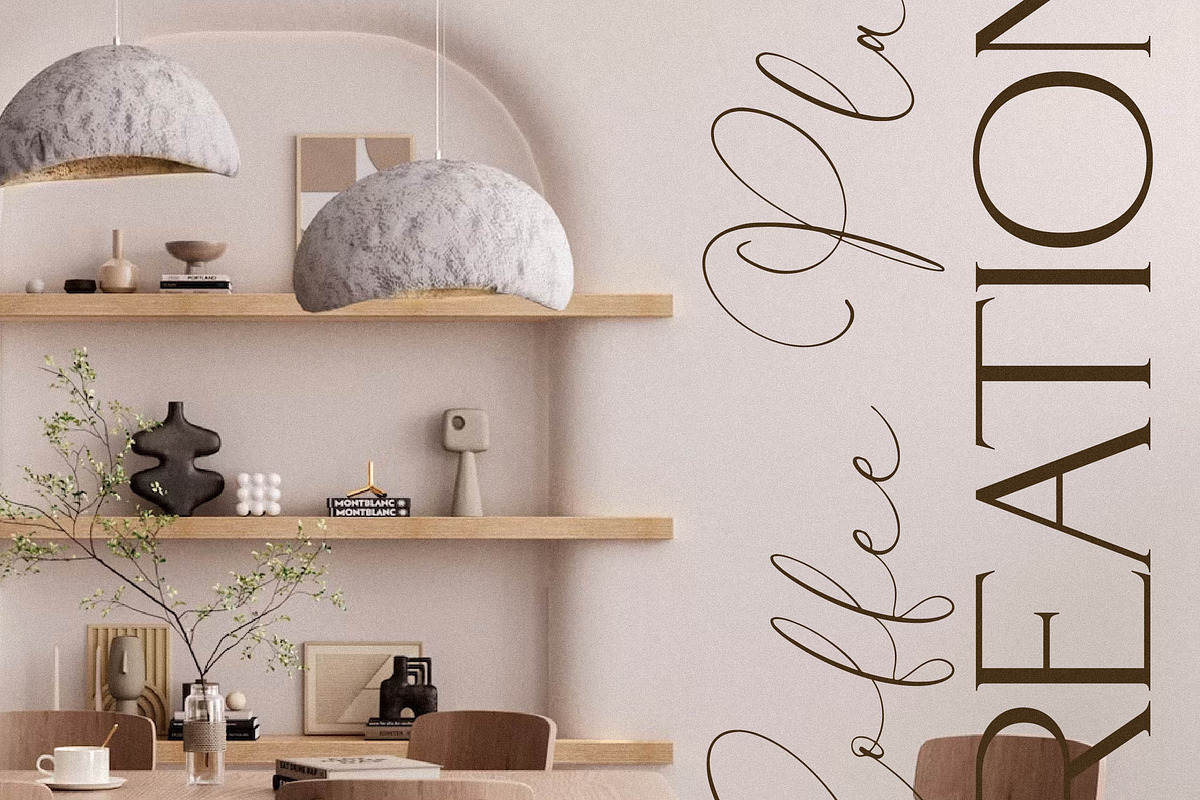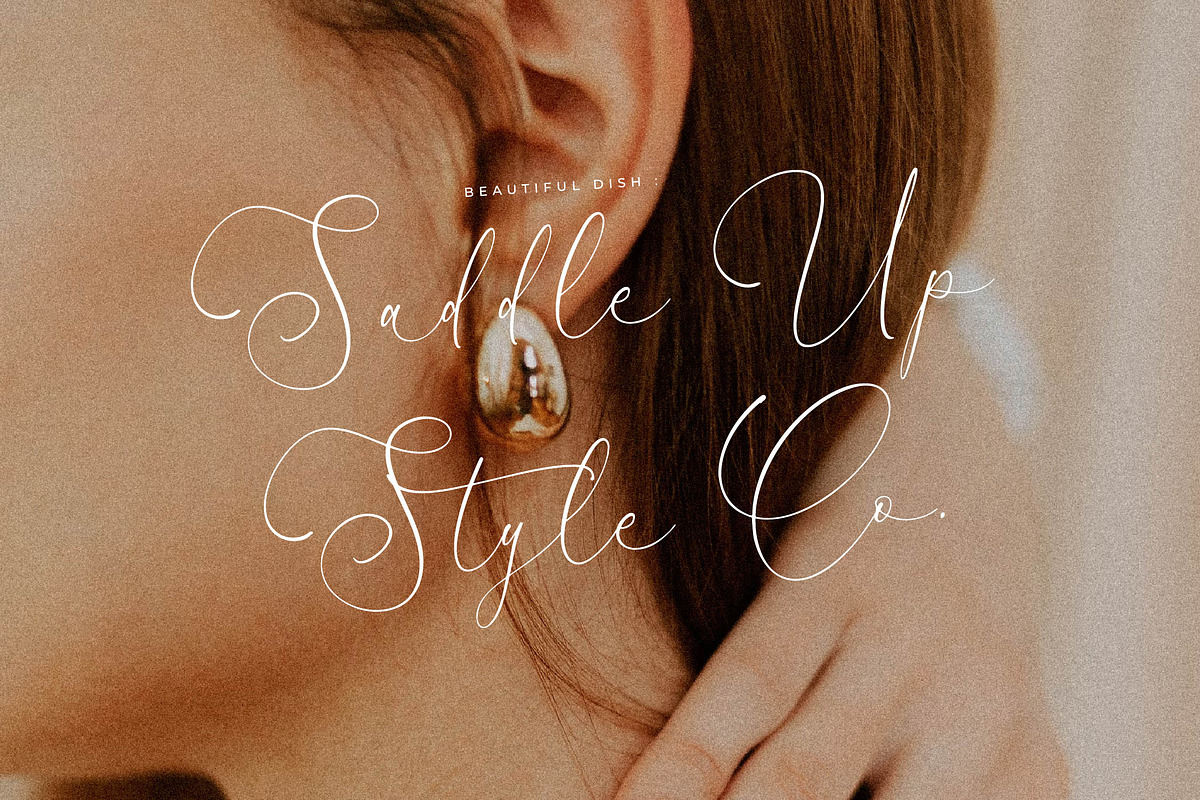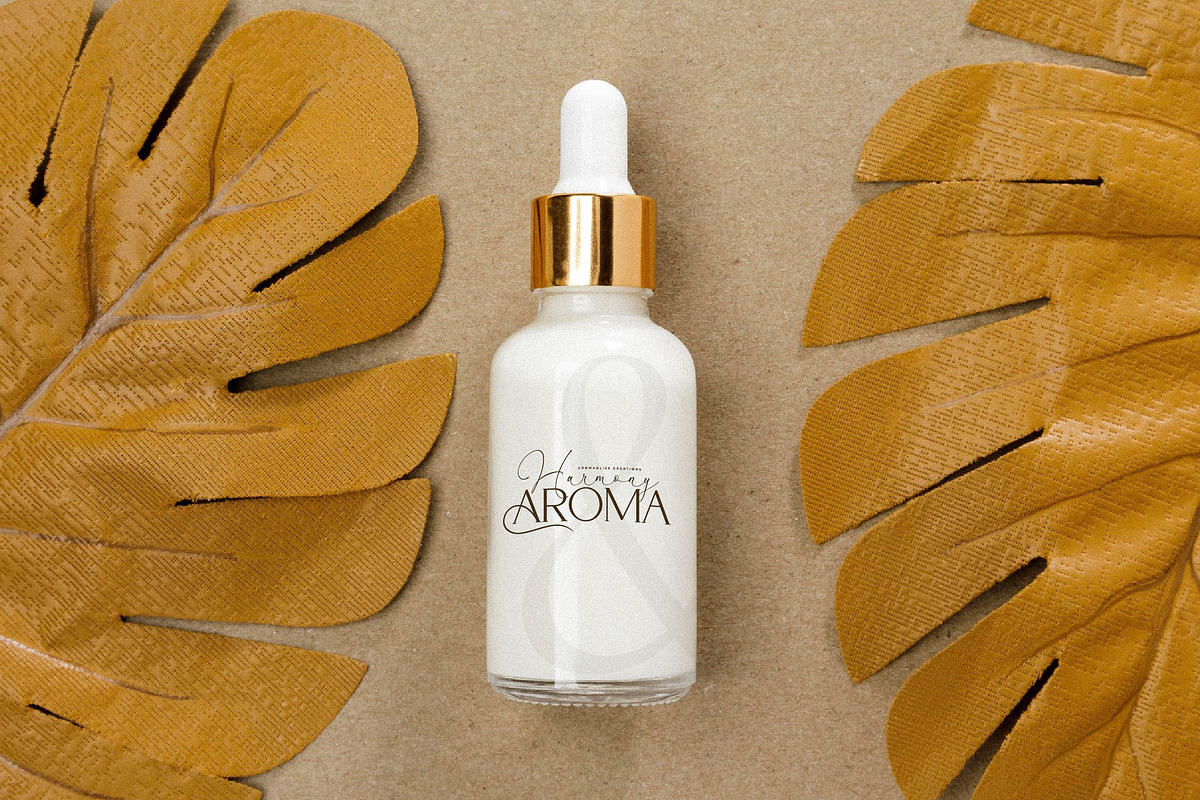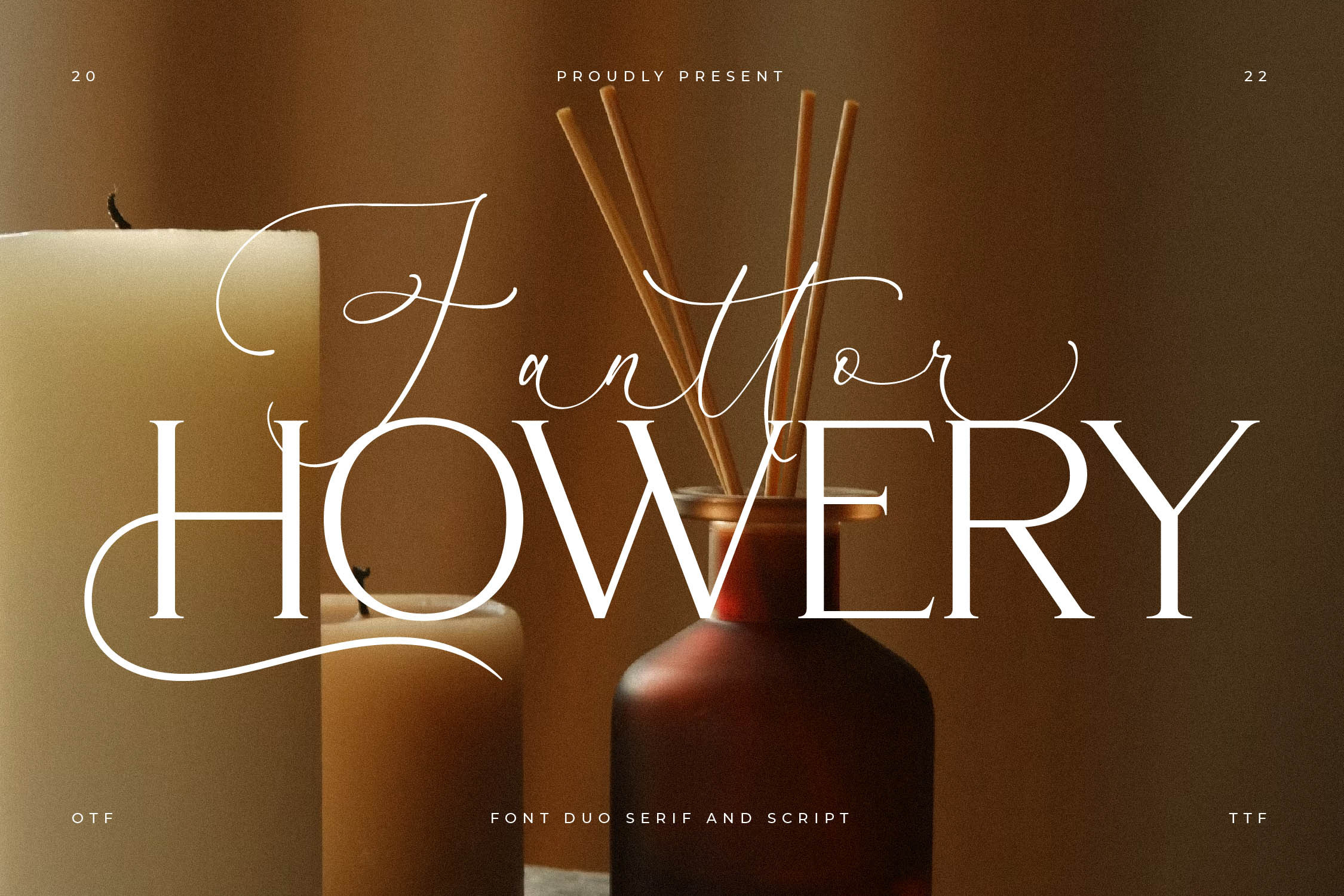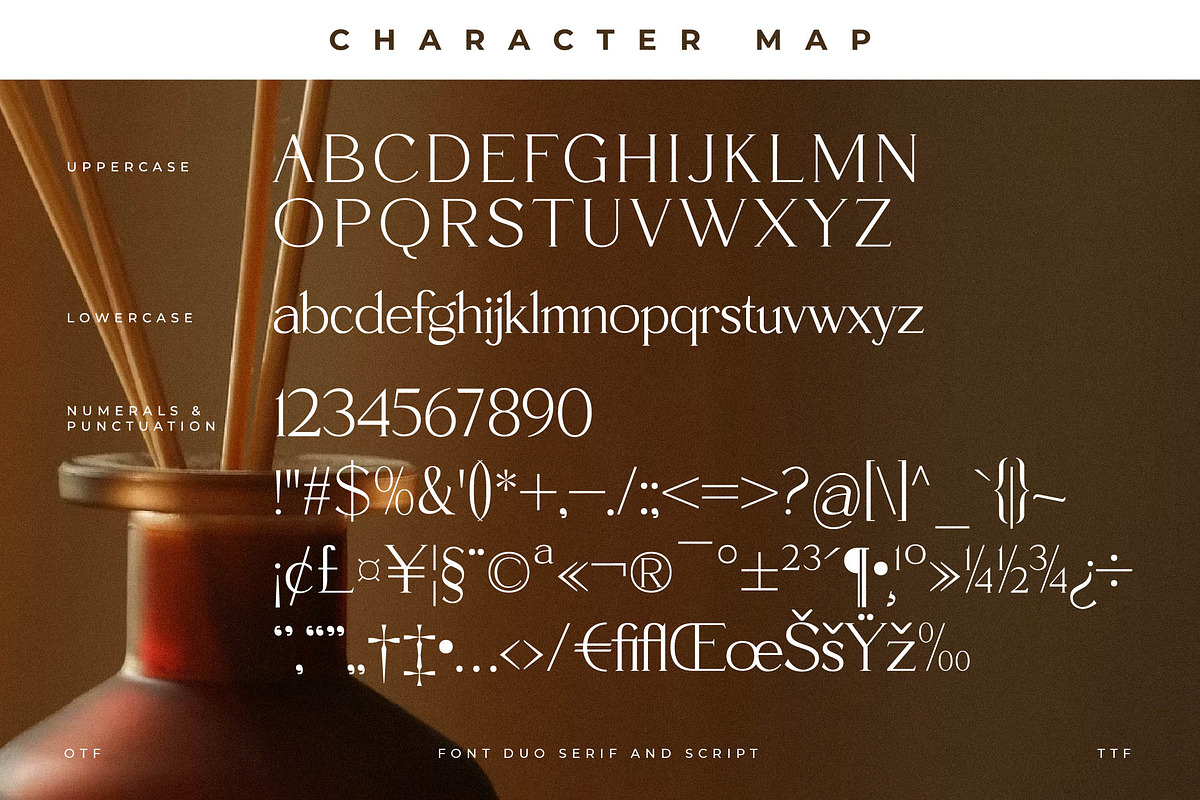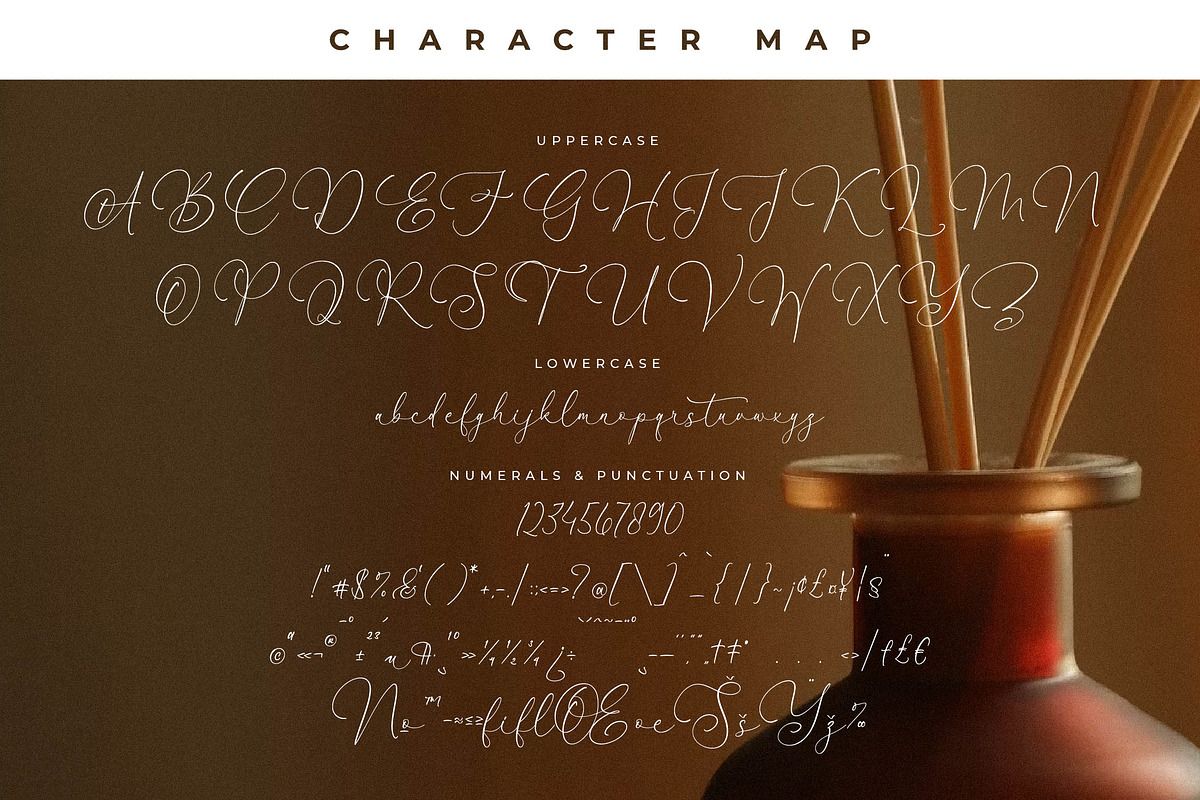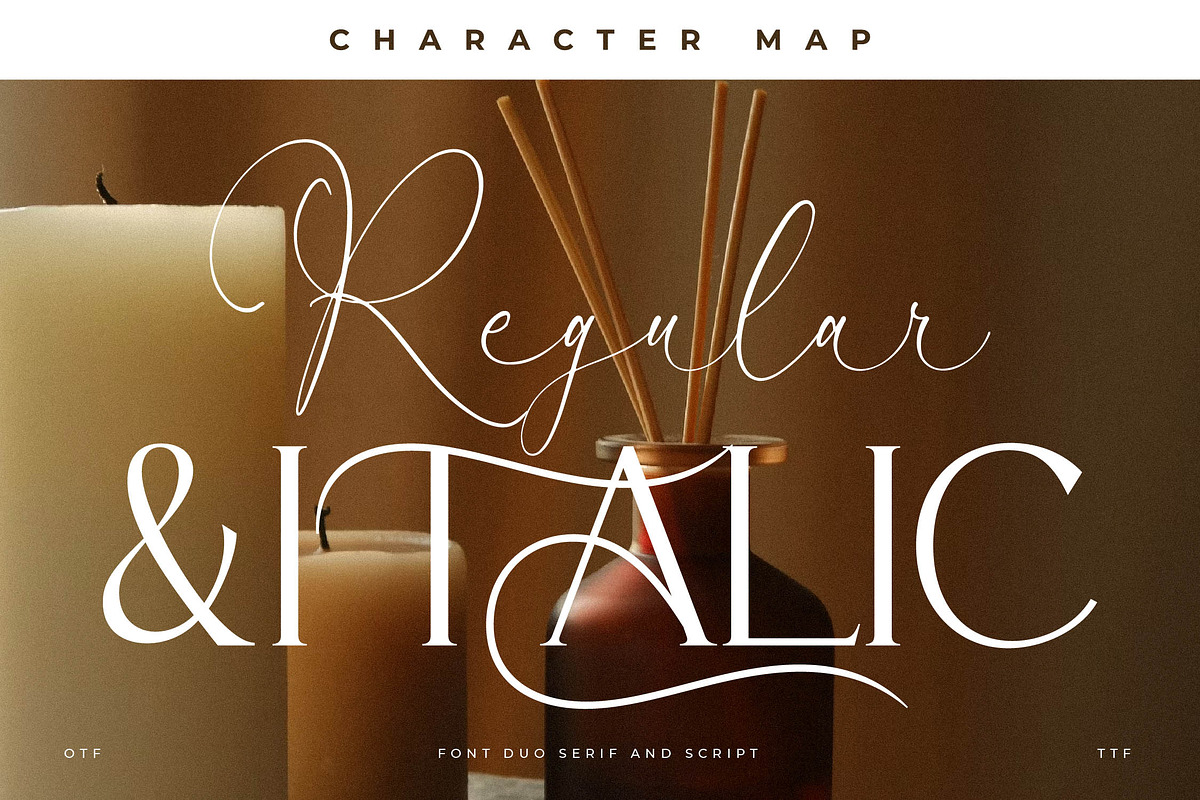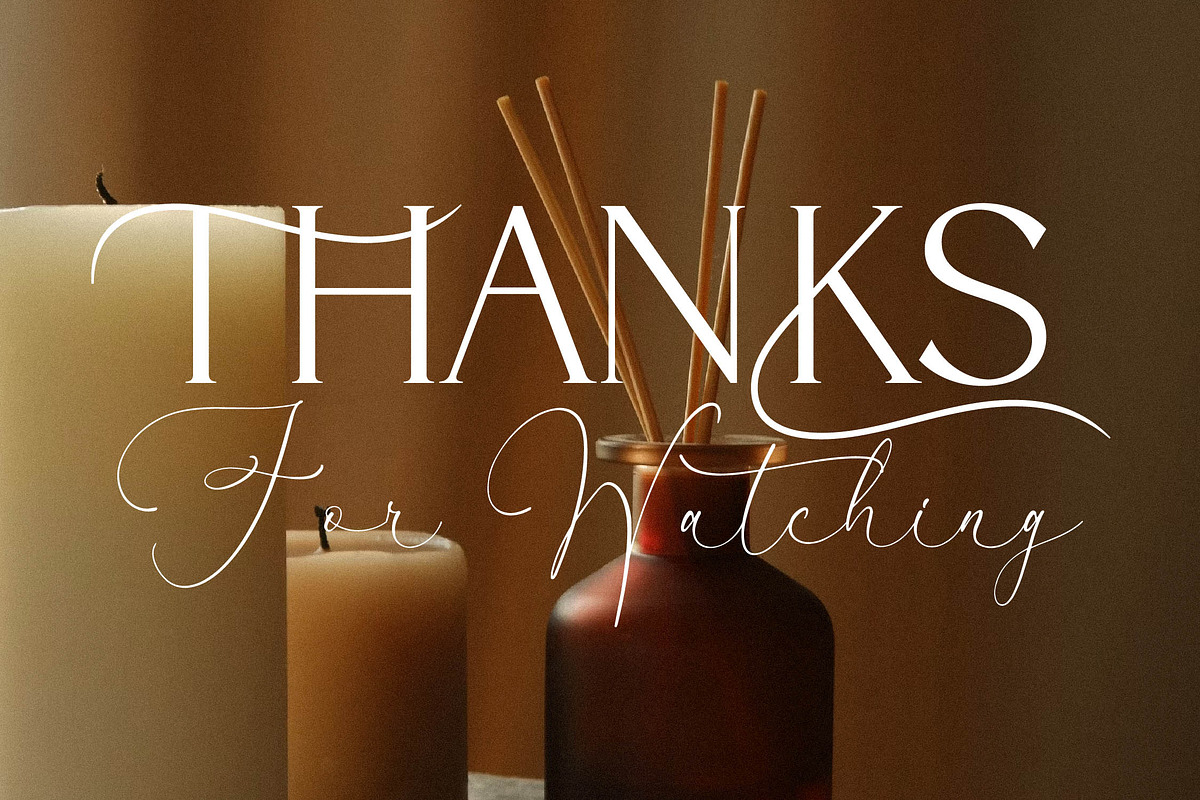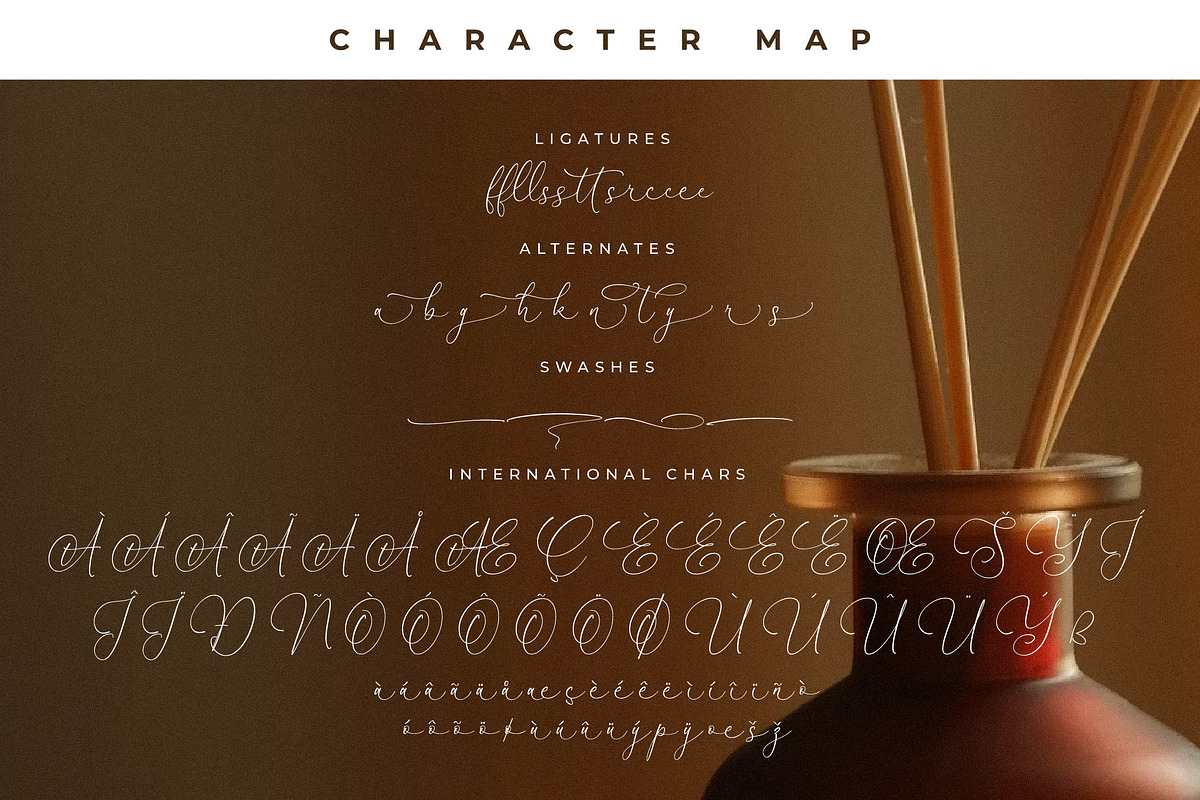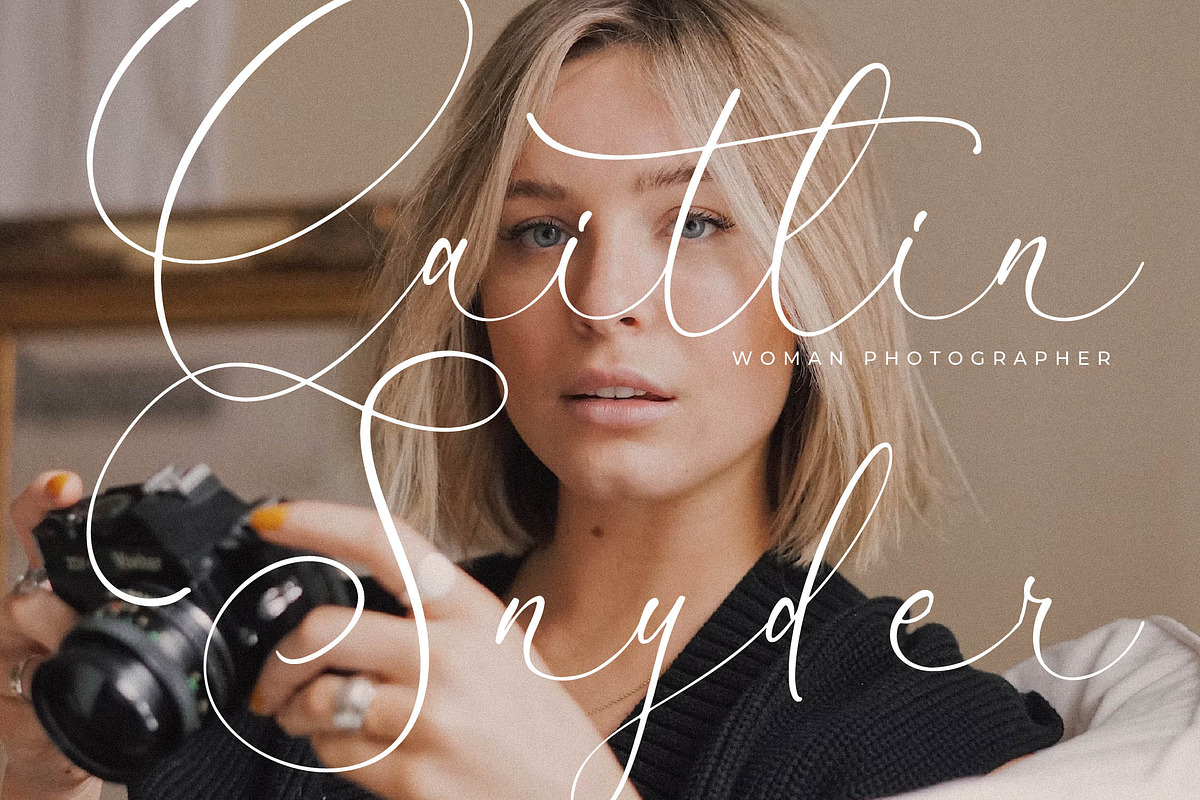
Fanttor Howery Font Duo
Proudly present Fanttor Howery Font Duo , created by Storytype, A serif and script typeface that has own unique style & modern look. This typeface is perfect for an elegant & luxury logo, book or movie title design, fashion brand, magazine, clothes, lettering, quotes, and so much more.